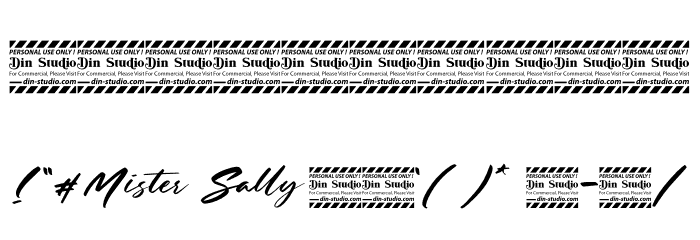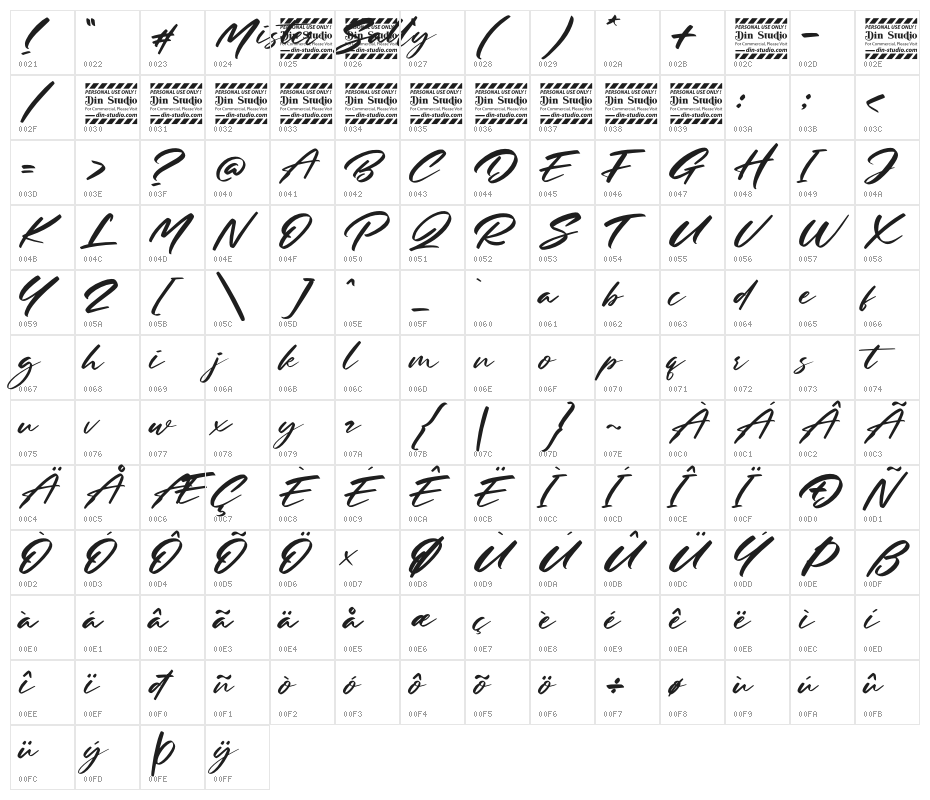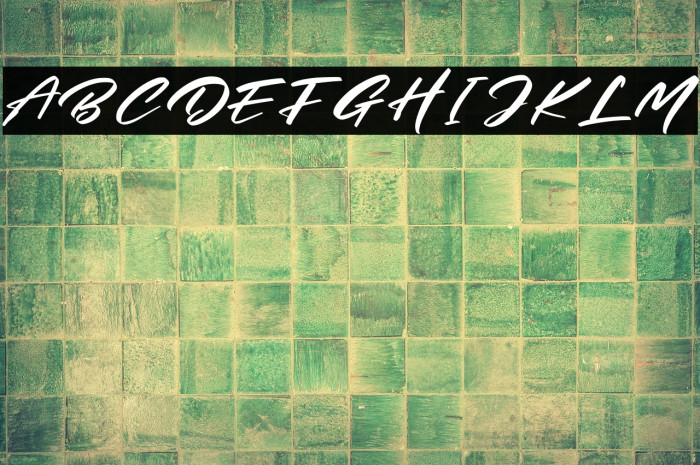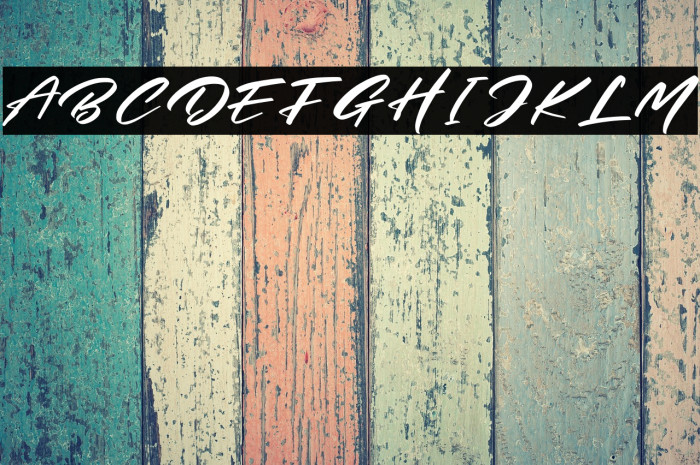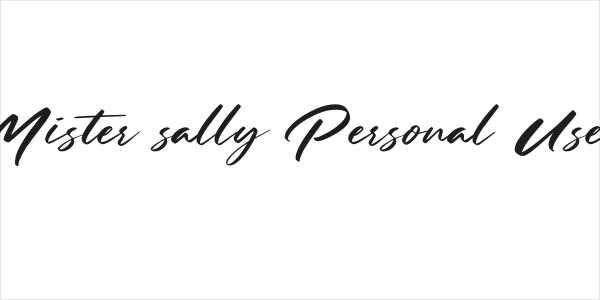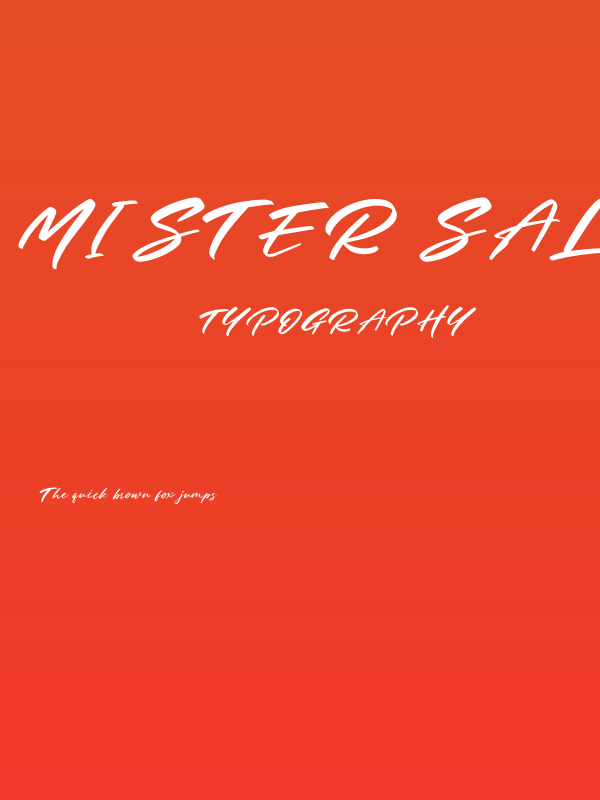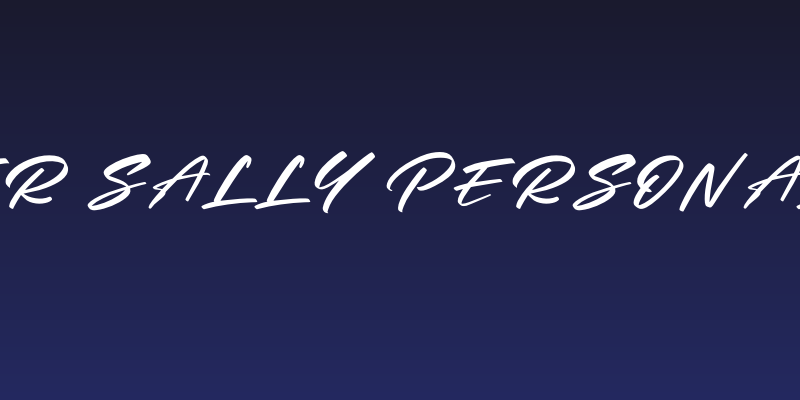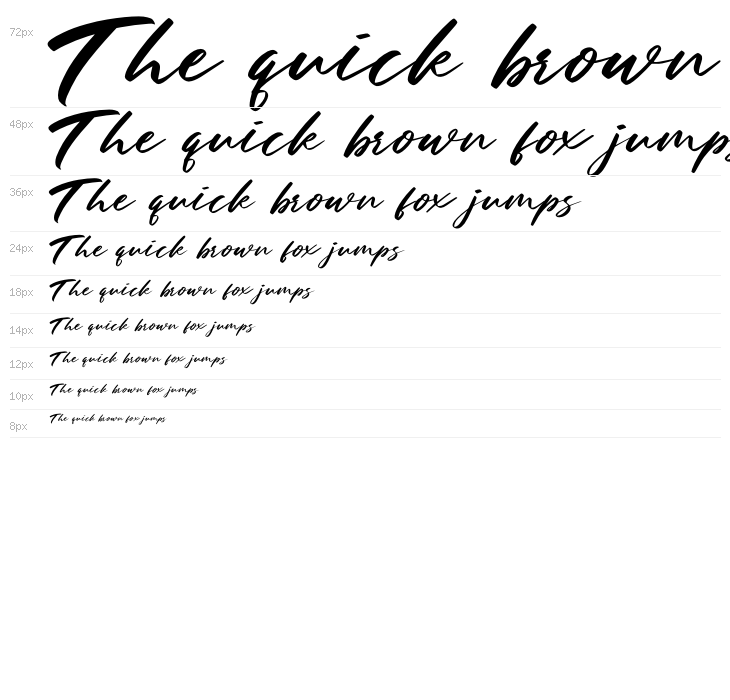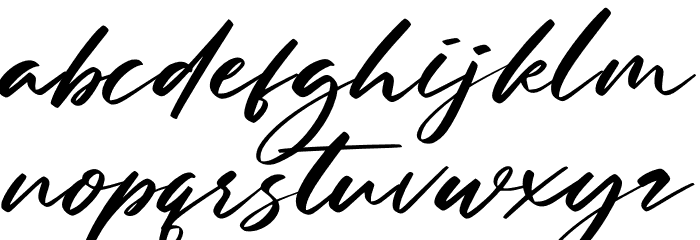
Mister sally Personal Use Font
Mister sally Personal Use Description
This font features a dynamic and fluid script style, characterized by its elegant and flowing letterforms. The uppercase letters are bold and slightly slanted, giving a sense of movement and energy. The lowercase letters maintain a consistent style, with smooth curves and connected strokes that enhance its handwritten appearance. The font includes a variety of special characters, adding versatility to its use. Its overall design is both stylish and sophisticated, making it suitable for creative and expressive projects.